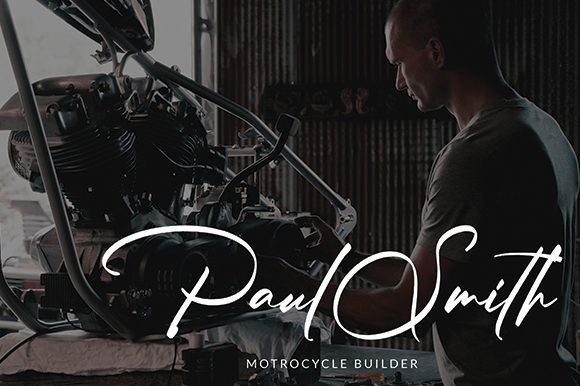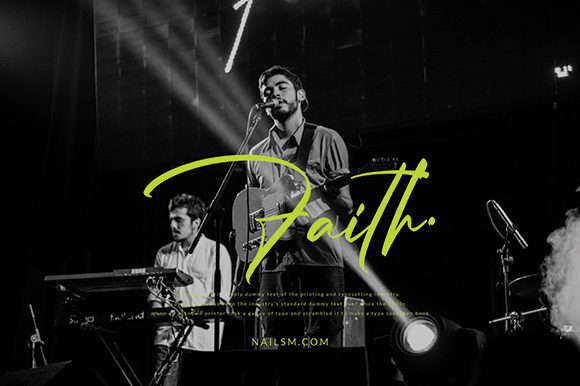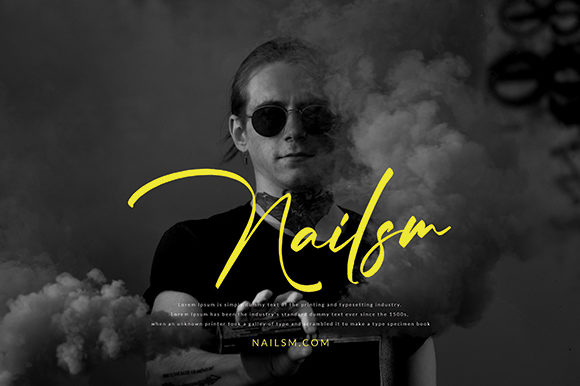
Introduction to Kidnatting Font
As designers, we’ve all been there – staring at a blank canvas, trying to bring a creative project to life. Sometimes, all it takes is the perfect font to spark inspiration. For me, it was the moment I stumbled upon the Kidnatting Font – a stunning handwritten script that instantly elevates any design.
With its elegant and beautiful look, Kidnatting Font is the perfect addition to any design project. Whether you’re creating a wedding invitation, a thank you card, or a logo, this font is sure to add a touch of sophistication and whimsy. And the best part? It’s a high-quality design resource that’s free to download, making it accessible to designers of all levels.
Key Features of Kidnatting Font
- Includes a comprehensive set of glyphs, ensuring versatility in various design applications.
- Designed with precision and care, offering a high-resolution font suitable for both screen and print use.
- Unique characteristics include its modern and sleek aesthetic, making it an excellent choice for contemporary design projects.
- Supports a wide range of languages, making it a valuable asset for designers working on multilingual projects.
Honest Review: Kidnatting Font
As a designer, I’m always on the lookout for high-quality fonts that can elevate my creative projects. Recently, I came across the Kidnatting Font, and I must say it’s been a game-changer. ✨
- Transparency: The font features a transparent background, which makes it perfect for overlaying on top of images or other design elements.
- Quality: The Kidnatting Font is incredibly detailed and has a smooth, professional look that’s sure to impress.
While the Kidnatting Font is an excellent addition to any designer’s toolkit, there are a few limitations to be aware of: ⚠️
- Limited character set: The font only includes a limited number of characters, which may not be suitable for longer texts or complex designs.
- Not ideal for body text: The Kidnatting Font is best used as a decorative font or for headings, as it can be difficult to read in smaller sizes.
Overall, I’m thoroughly impressed with the Kidnatting Font. Its unique style and high quality make it a valuable addition to any design project. Whether you’re working on a personal or commercial project, I highly recommend giving it a try.
The Kidnatting Font is ideal for creative projects, such as graphic design, typography, and branding. It’s also perfect for presentations, documents, and social media posts where you want to add a touch of sophistication. With its transparent background and high quality, the Kidnatting Font is a valuable design resource for any creative project.